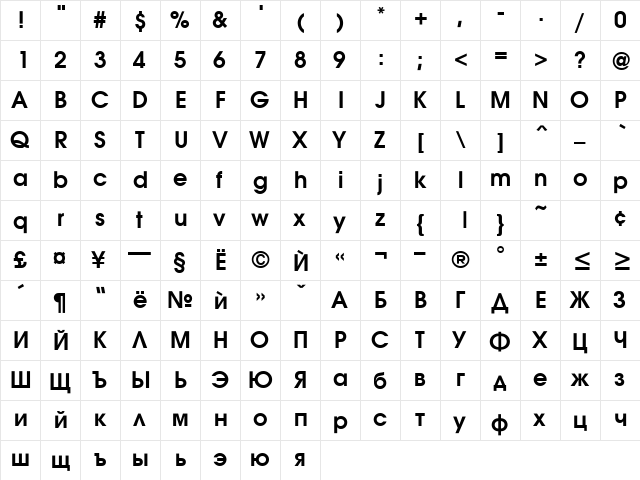
Avanti Bold
Design Context for Avanti Typeface
Avanti takes a measured approach to typography — its balanced proportions and neutral character make it a reliable workhorse for both digital and print work. The heavy weight commands attention and anchors typographic hierarchies.
Pro Tip: Use Avanti in both headline and body roles to test its range before committing to a single application.